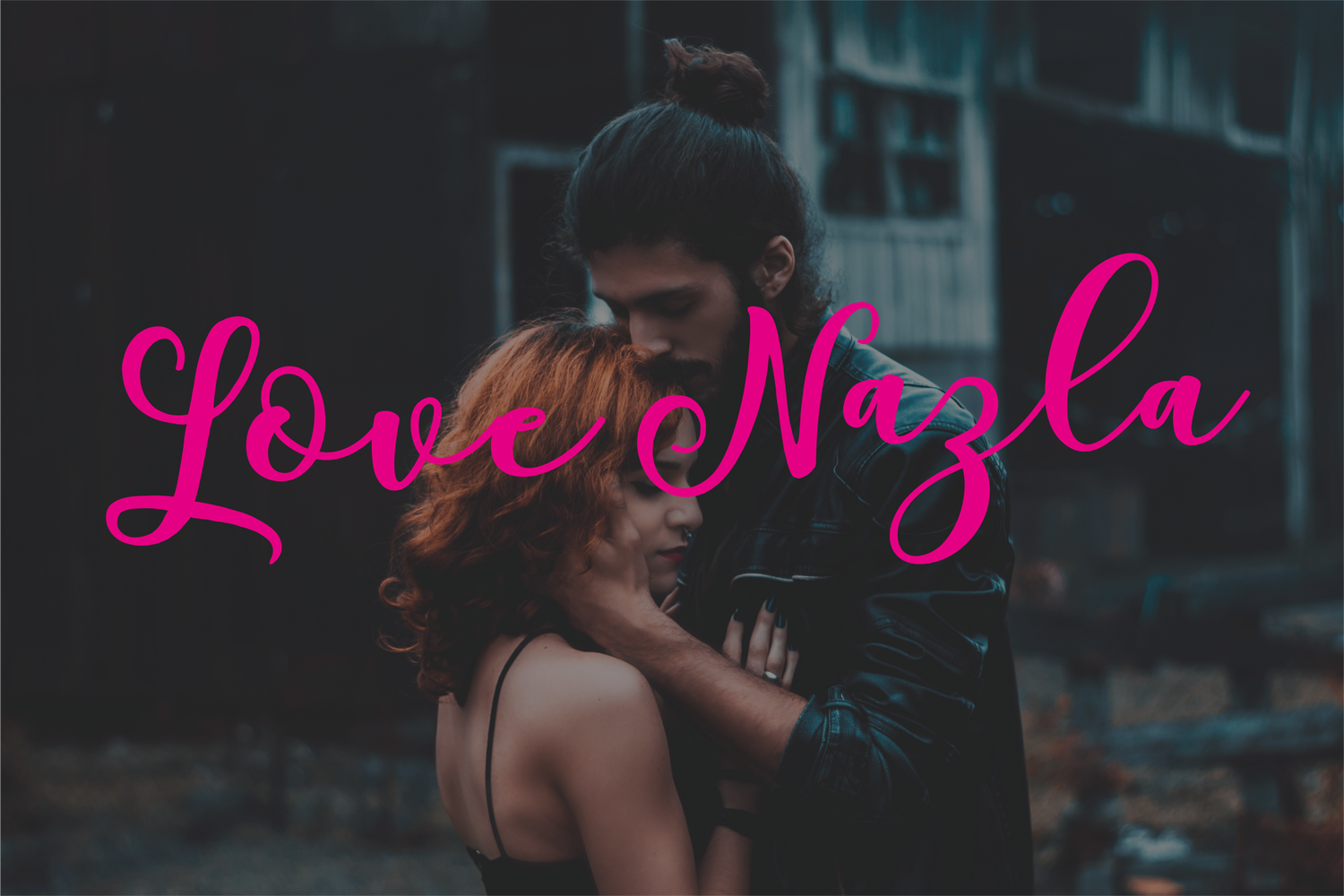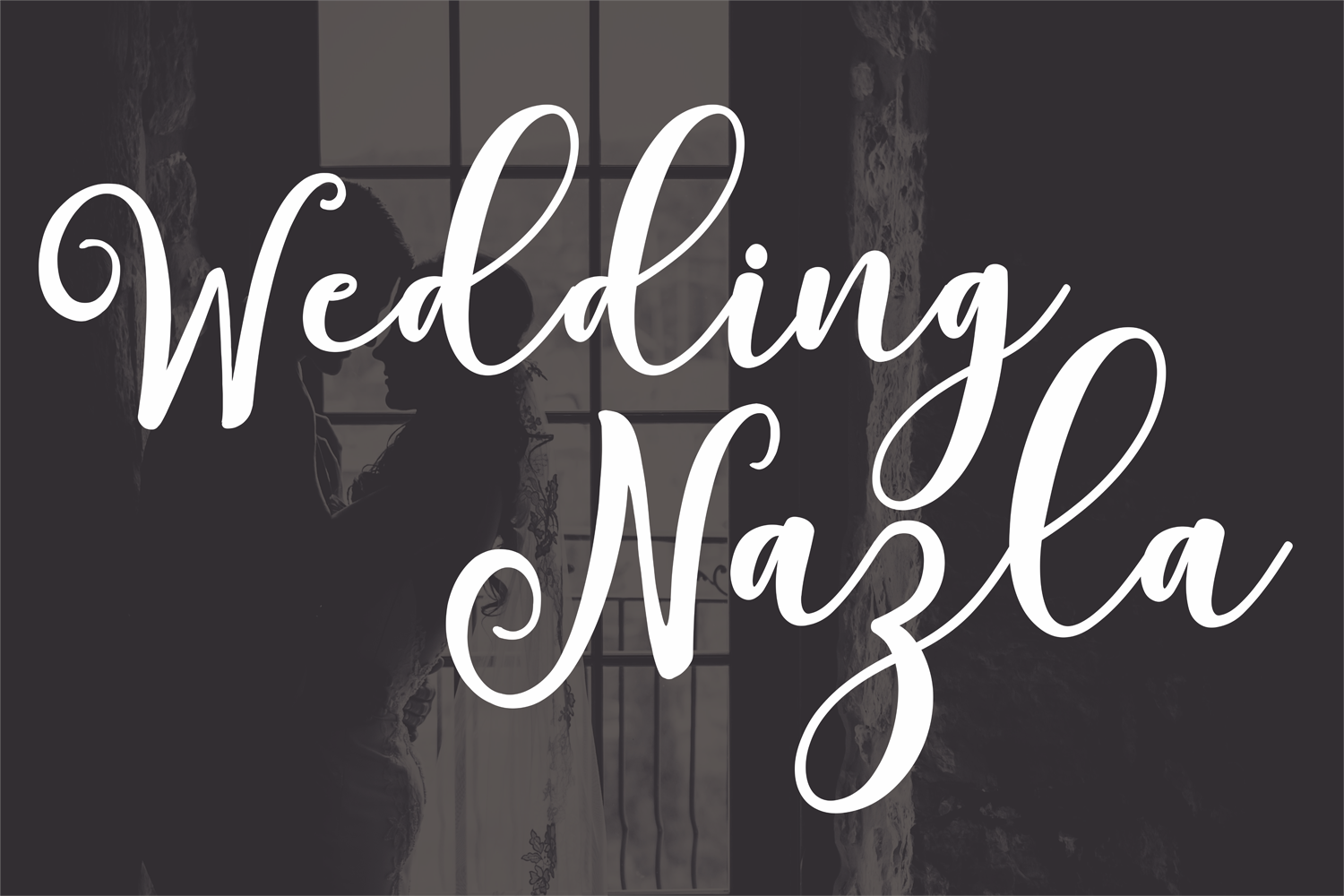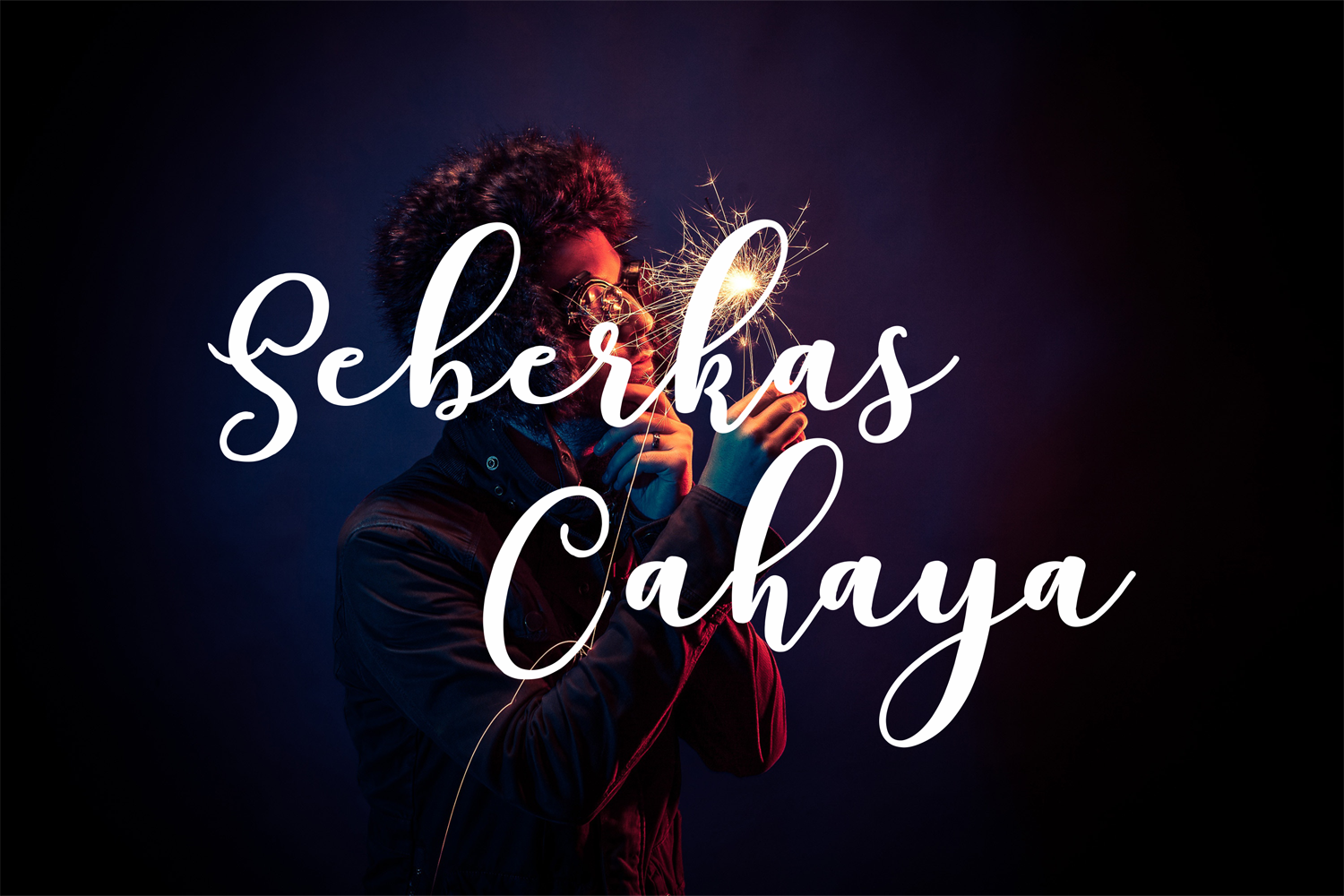
HomeScript FontsNazla Font Script Fonts Nazla Font FacebookXPinterestWhatsApp Nazla Font Poster 2 Nazla Font Poster 3 Nazla Font Poster 4 About Nazla Font Nazla is a modern script font that features a calligraphy style with a modern twist. DOWNLOAD ON CREATIVE FABRICAThis font is sold and delivered by Creative Fabrica. Font Canyon may earn a commission if you buy through this link. People also explored Futuristic Ballad Font Lin SamLin Font Southam Font Thin in Bold Font Sequel Font Le Greg Font Urban Daily Font Goldie Font Lemon Toffy Font 488 0 TagsNazla Font Previous articleManibus FontNext articleDorothy Miranda Font LEAVE A REPLY Cancel reply Comment: Please enter your comment! Name:* Please enter your name here Email:* You have entered an incorrect email address! Please enter your email address here Website: Save my name, email, and website in this browser for the next time I comment. Personal Use Free Bruttney Personal Use Free Read more about this font Forturn Personal Use Free Read more about this font Susanna Personal Use Free Read more about this font Omira Personal Use Free Read more about this font BLOG How to Cut Any Font on Cricut: Convert a Font to SVG (Free) Turn any font into a clean SVG so it cuts crisp on Cricut - a quick 3-step workflow using a free font-to-SVG tool. Where to Buy American Fonts Online in 2024 Free Fonts Risk: Why Free Fonts Can Be Dangerous for Designers How to Install and Use Fonts on Windows, macOS, and Web Projects